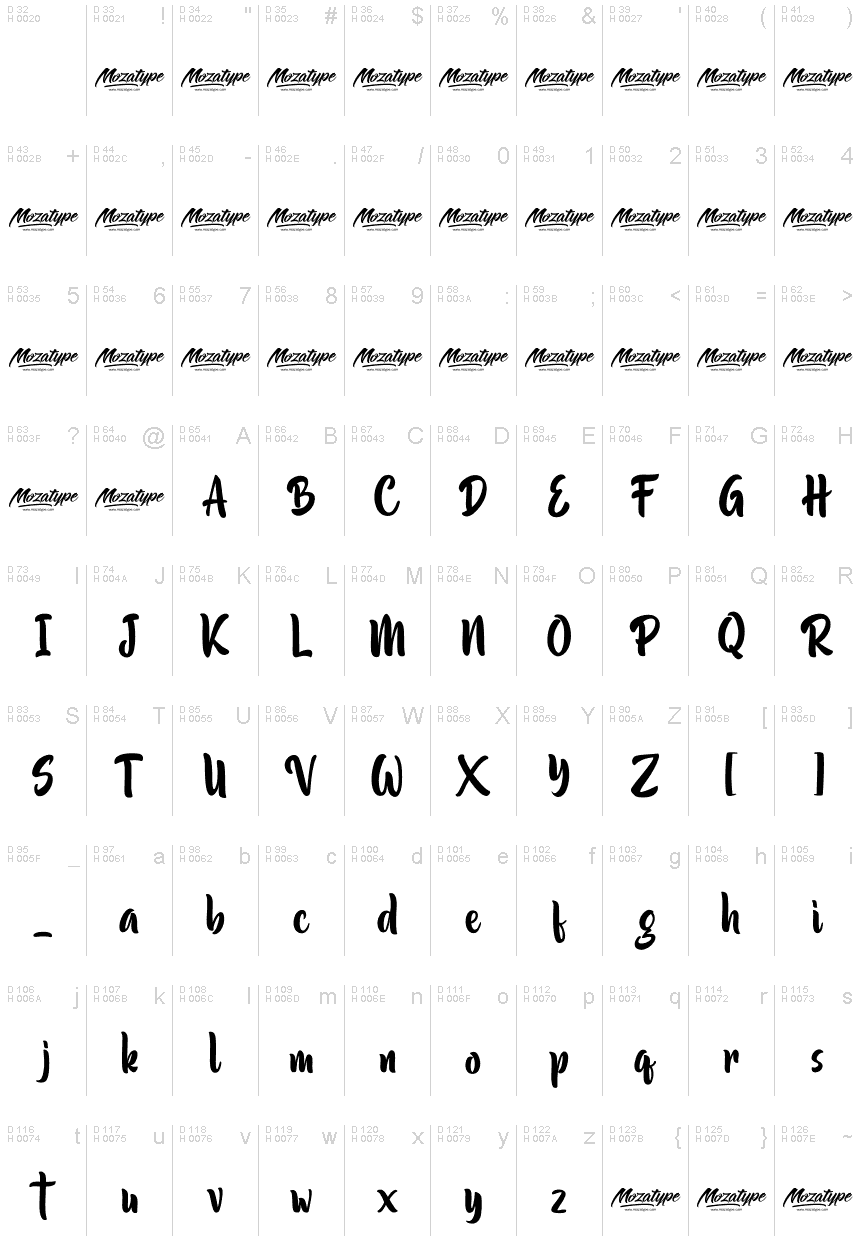
Orange Lemonade Font . 9,284 downloads (4 yesterday) free for personal use. It's is a playful and adventurous display. Click now to create a custom image with your own words that you can. Get your very own free download of the orange lemonade font, designed and created by mozatype. Download orange lemonade font · free for personal use · hi there, thank you for downloading this font.this is font free for. Download the latest orange lemonade font for windows, mac, & linux exclusively at font canyon. Orange lemonade is a cute and casual handwritten font with an incredibly friendly feel. Available in both ttf and otf. Free download of orange lemonade font.
Free download of orange lemonade font. Download orange lemonade font · free for personal use · hi there, thank you for downloading this font.this is font free for. 9,284 downloads (4 yesterday) free for personal use. Download the latest orange lemonade font for windows, mac, & linux exclusively at font canyon. Orange lemonade is a cute and casual handwritten font with an incredibly friendly feel. Click now to create a custom image with your own words that you can. Get your very own free download of the orange lemonade font, designed and created by mozatype. Available in both ttf and otf. It's is a playful and adventurous display.